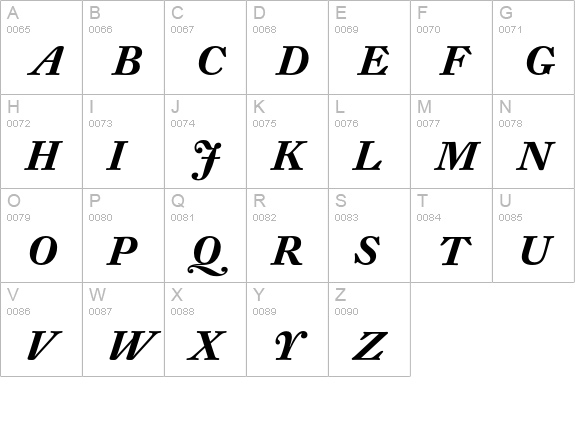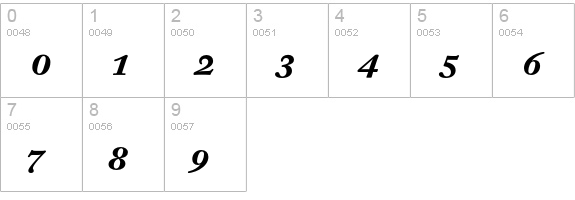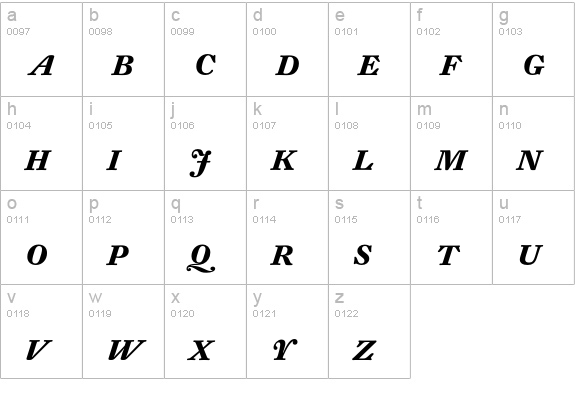
DTL Fleischmann D Bold Italic Caps Font Details
DTL Fleischmann D Bold Italic Caps is a strong, high-contrast, italic variant in the DTL typeface family \xE2\x80\x94 well suited to headlines, attention-grabbing titles, and strong calls-to-action.
The DTL Fleischmann D Bold Italic Caps font exudes a sense of bold elegance and modern sophistication. Its sleek and stylish design makes it perfect for adding a touch of sophistication to any project. The bold italic style adds a dynamic flair to your text, making it stand out with a strong presence. This font is perfect for creating eye-catching headlines, titles, and branding materials that demand attention. Its clean lines and sharp angles give it a contemporary edge, while the bold italic styling adds a touch of drama and flair. Best of all, the DTL Fleischmann D Bold Italic Caps font is available for free download at FontsMarket.com. This means you can start using this stunning font in your designs right away without any cost. Don't miss out on the opportunity to elevate your projects with this versatile and stylish typeface.